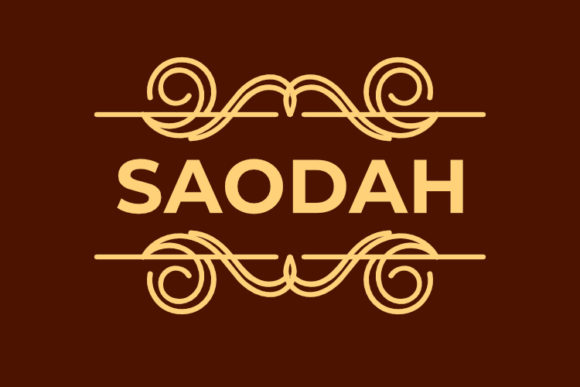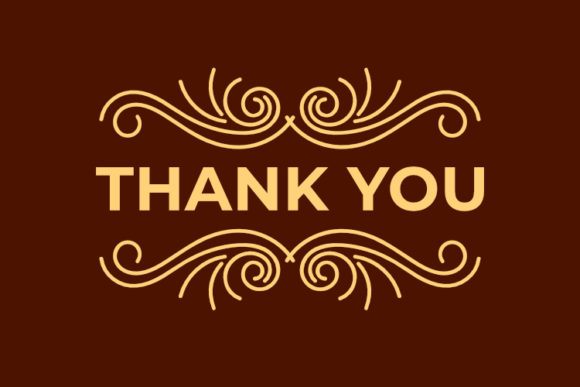
Introduction to Frameswari Font
Have you ever been working on a creative project, pouring your heart and soul into it, only to realize that the finishing touches are missing? The perfect frame can make all the difference in bringing your design to life. That’s where the Frameswari Font comes in – a gorgeous dingbats font that offers a charming set of frames to elevate your designs.
As a valuable design resource, the Frameswari Font is a game-changer for designers. With its high-quality frames, you can add a professional touch to your projects without breaking the bank. And the best part? It’s available for free download, making it an accessible addition to your design toolkit.
Whether you’re working on a digital design or a print project, the Frameswari Font is sure to be a valuable asset. Its transparent background makes it easy to integrate with your existing design elements, giving you complete creative freedom to experiment and innovate.
Key Features of Frameswari Font
- Unique and elegant design, perfect for creative projects requiring a touch of sophistication.
- Transparent background, allowing for seamless integration with various design elements and backgrounds.
Honest Review: Frameswari Font
I recently came across the Frameswari Font, and I must say it’s a fantastic addition to any design resource library. This font is perfect for designers working on creative projects that require a touch of elegance and sophistication.
- ✨ The Frameswari Font is a high-quality font with a beautiful, cursive design that adds a personal touch to any project.
- ✨ The font features a transparent background, which allows for easy integration with other design elements.
- ⚠️ The Frameswari Font may not be suitable for projects that require a bold, sans-serif font.
- ⚠️ Some users may find the font’s cursive design to be too ornate or difficult to read in certain contexts.
Overall, I’m thoroughly impressed with the Frameswari Font. Its high quality, elegant design, and free availability make it a valuable addition to any designer’s library. If you’re working on a creative project that requires a touch of sophistication, I highly recommend giving the Frameswari Font a try.
Frameswari Font is a versatile design resource that can be used in a variety of creative projects, including logo design, branding, and marketing materials. Its high-quality, transparent background makes it perfect for use on images and graphics.